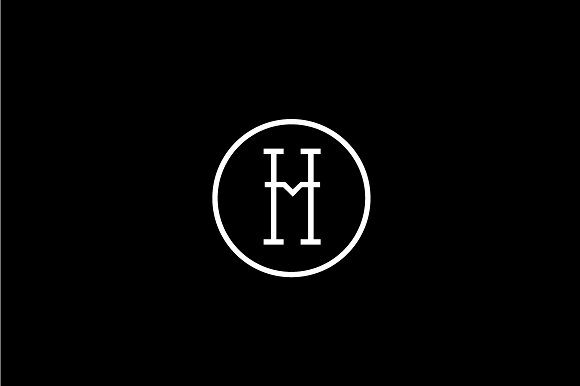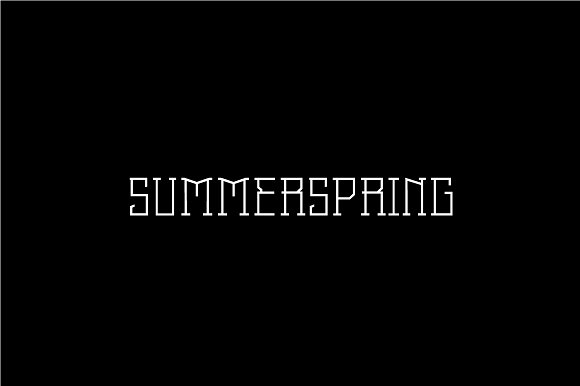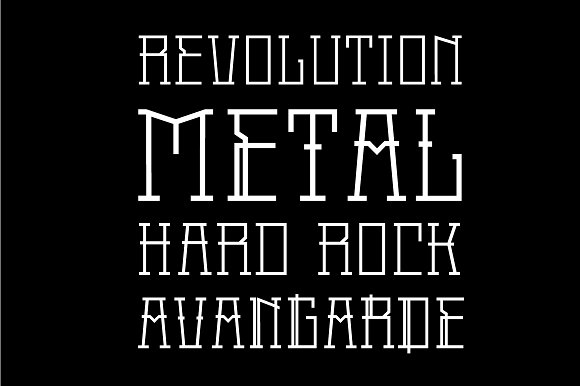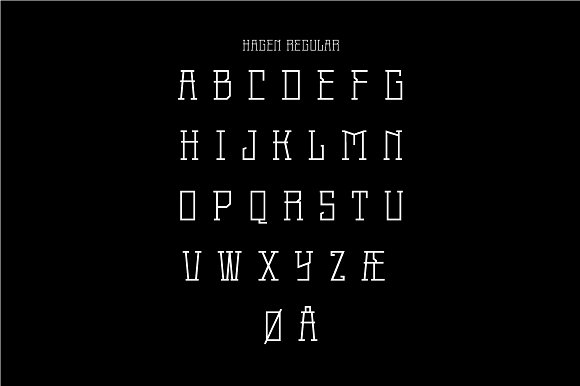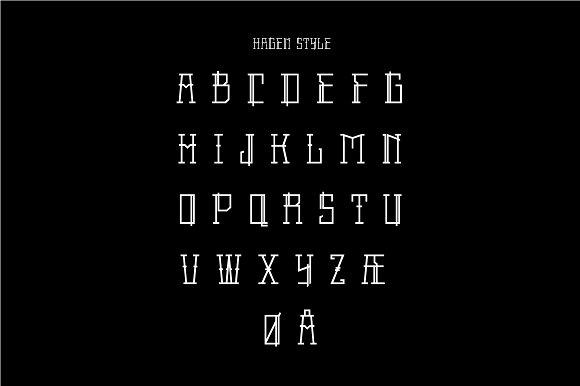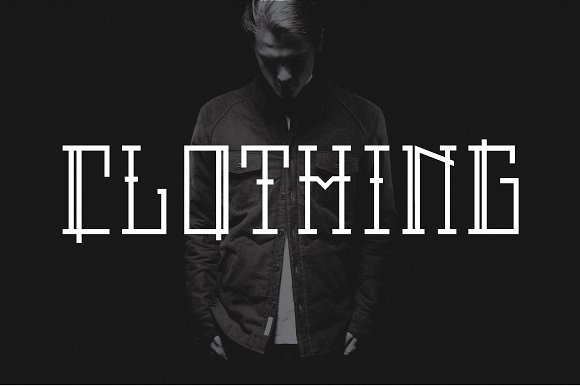
Introduction to Hagen Font
Do you ever find yourself stuck in a creative rut, struggling to find the perfect font to elevate your design project? That’s exactly what happened to me last week when I was working on a campaign for a high-end fashion brand. I wanted a font that screamed luxury and sophistication, but nothing seemed to capture the essence of the brand’s extravagant style.
That’s when I stumbled upon the Hagen Font – a true game-changer in the world of typography. This stunning font is a design resource that will take your creative project to the next level, offering a high-quality, elegant look that’s perfect for any fashion-forward brand.
Key Features of Hagen Font
- High-quality font design with a transparent background, ideal for creative projects.
- Unique characteristics include its modern and sleek aesthetic, making it a great choice for contemporary designs.
- Supports multiple languages, making it a versatile font for international creative projects.
Honest Review: Hagen Font
- ✨ High quality design with a clean and modern look
- ✨ Wide range of font styles to choose from
- ✨ Transparent background, making it easy to use in any design
- ⚠️ Limited font sizes available (although it’s still a decent range)
- ⚠️ Not as many language support options as some other fonts
Overall, I’m quite impressed with the Hagen Font. It’s a solid design resource that can elevate your creative project. The free download option is a nice touch, and the high quality design is sure to make your project stand out. If you’re looking for a clean and modern font, I’d definitely recommend giving Hagen Font a try.
Tips for Getting the Most Out of the Hagen Font
Here are a few tips for getting the most out of the Hagen Font:
- Experiment with different font sizes and styles to find the perfect combination for your design.
- Use the transparent background to combine the Hagen Font with other design elements.
- Take advantage of the Hagen Font’s high quality to create professional-looking designs.
The Hagen Font is perfect for a variety of creative projects, including: